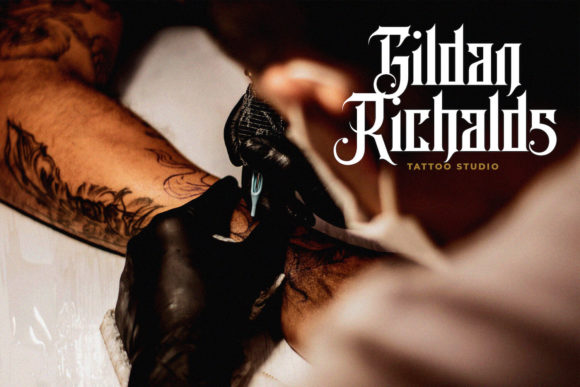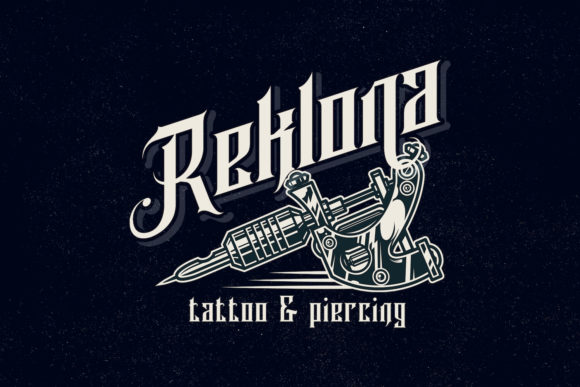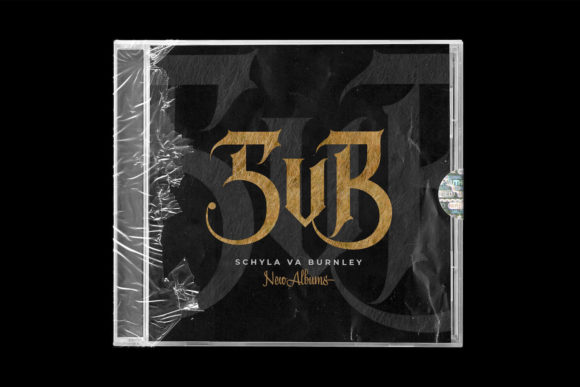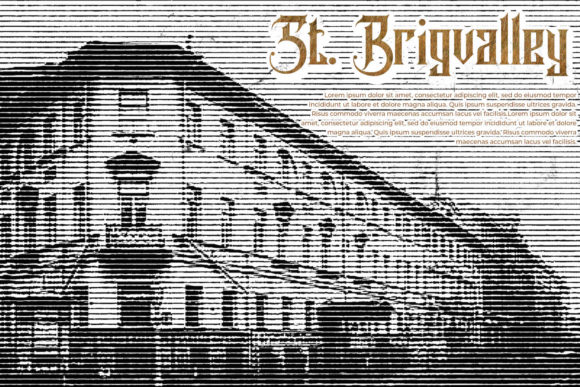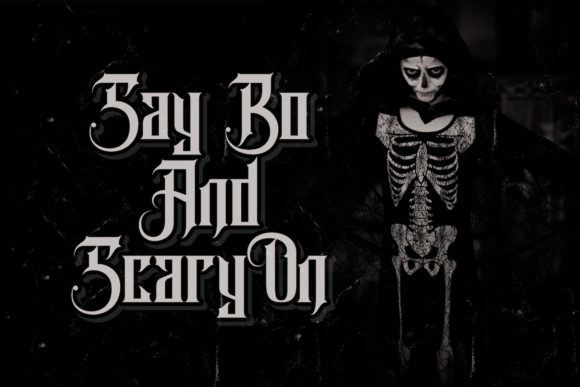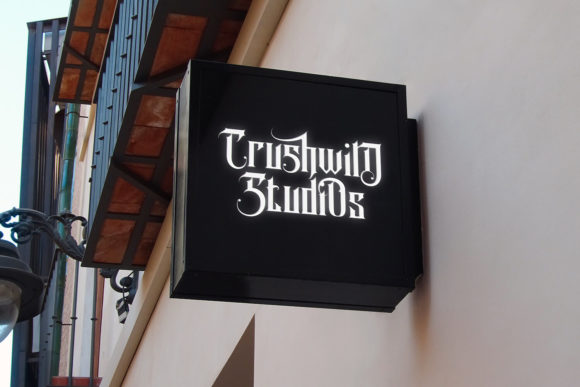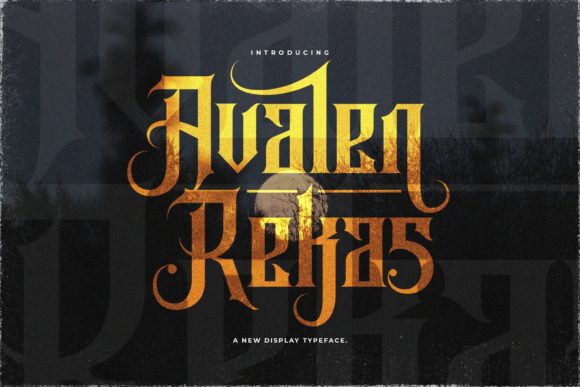
Avalen Rekas Font: Elevate Your Designs with a Spectacular Blackletter Font
Avalen Rekas is a stunning blackletter font that has been making waves in the design community. Its unique blend of elegance and edginess makes it an incredibly versatile font that can elevate a wide range of designs to new heights. In this article, we’ll dive into the world of Avalen Rekas, exploring its features, benefits, and uses, and discover how this spectacular font can bring your creative ideas to life.
The Power of Blackletter Fonts
Blackletter fonts have been a staple of design for centuries, originating in the Middle Ages as a style of calligraphy. Characterized by their dramatic flourishes and bold lines, blackletter fonts exude a sense of luxury, elegance, and sophistication. In modern design, blackletter fonts are often used to add a touch of drama and flair to projects, from wedding invitations to movie posters.
Avalen Rekas: A Standout Blackletter Font
Avalen Rekas is a standout blackletter font that boasts an impressive range of features. Its intricate lettering and bold lines make it perfect for designs that require a touch of luxury and sophistication. The font’s versatility is one of its most striking features, making it suitable for a wide range of projects, from:
- Wedding invitations and event stationery
- Movie posters and theatrical designs
What Makes Avalen Rekas So Special?
So, what sets Avalen Rekas apart from other blackletter fonts? Here are just a few reasons why this font is a cut above the rest:
- Unique character set: Avalen Rekas features a comprehensive character set, including uppercase and lowercase letters, numbers, and punctuation marks.
- Intricate details: The font’s intricate details and flourishes add a level of sophistication and elegance to any design.
- Highly legible: Despite its ornate nature, Avalen Rekas is highly legible, making it perfect for designs that require both style and substance.
Bringing Your Creative Ideas to Life with Avalen Rekas
Whether you’re a designer, crafter, or DIY enthusiast, Avalen Rekas is the perfect font to add to your creative toolkit. Its versatility and elegance make it an excellent choice for a wide range of projects, from:
- Creating stunning wedding invitations and event stationery
- Designing eye-catching movie posters and theatrical designs
- Crafting beautiful packaging and product design
- Developing unique logos and branding materials
Tips and Tricks for Using Avalen Rekas
To get the most out of Avalen Rekas, here are a few tips and tricks to keep in mind:
- Experiment with different sizes: Avalen Rekas looks stunning in large sizes, but it can also be used effectively in smaller sizes to add a touch of elegance to your designs.
- Pair with complementary fonts: Avalen Rekas pairs beautifully with sans-serif fonts, such as Arial or Helvetica, to create a striking contrast.
- Use it sparingly: While Avalen Rekas is a stunning font, it can be overwhelming if used excessively. Use it sparingly to add a touch of drama and flair to your designs.